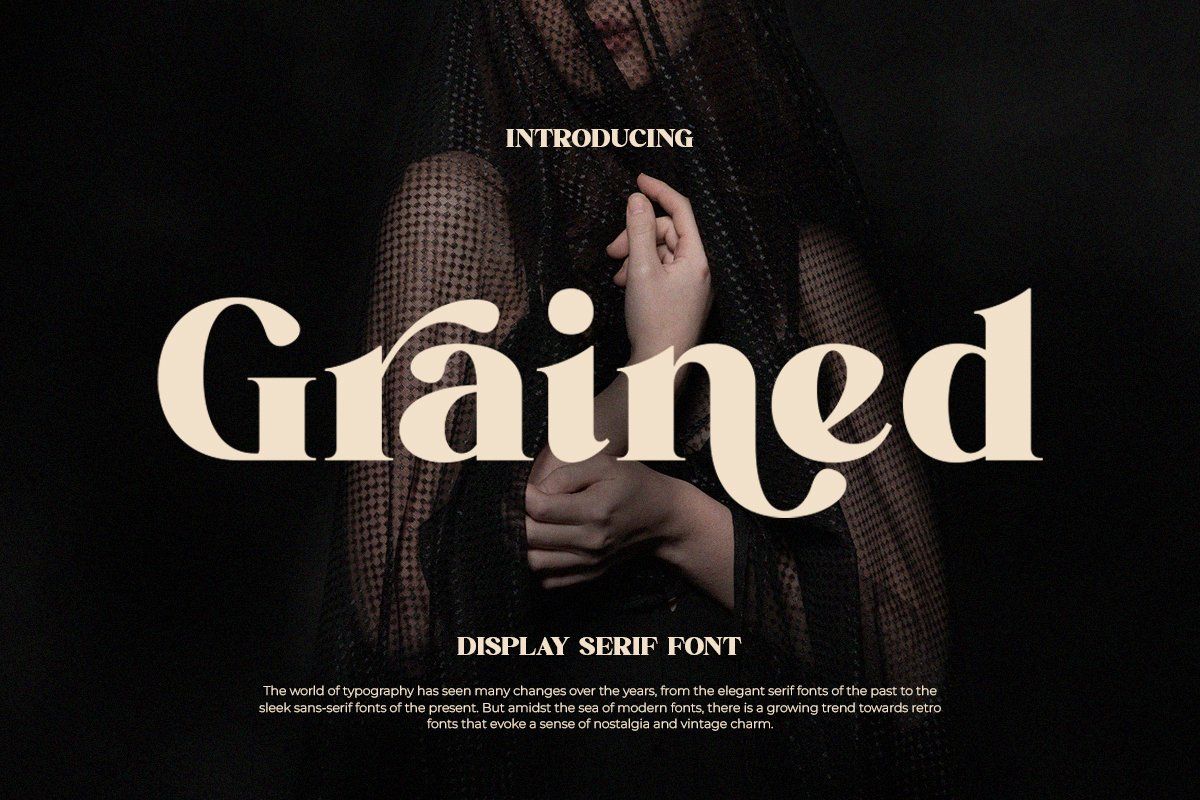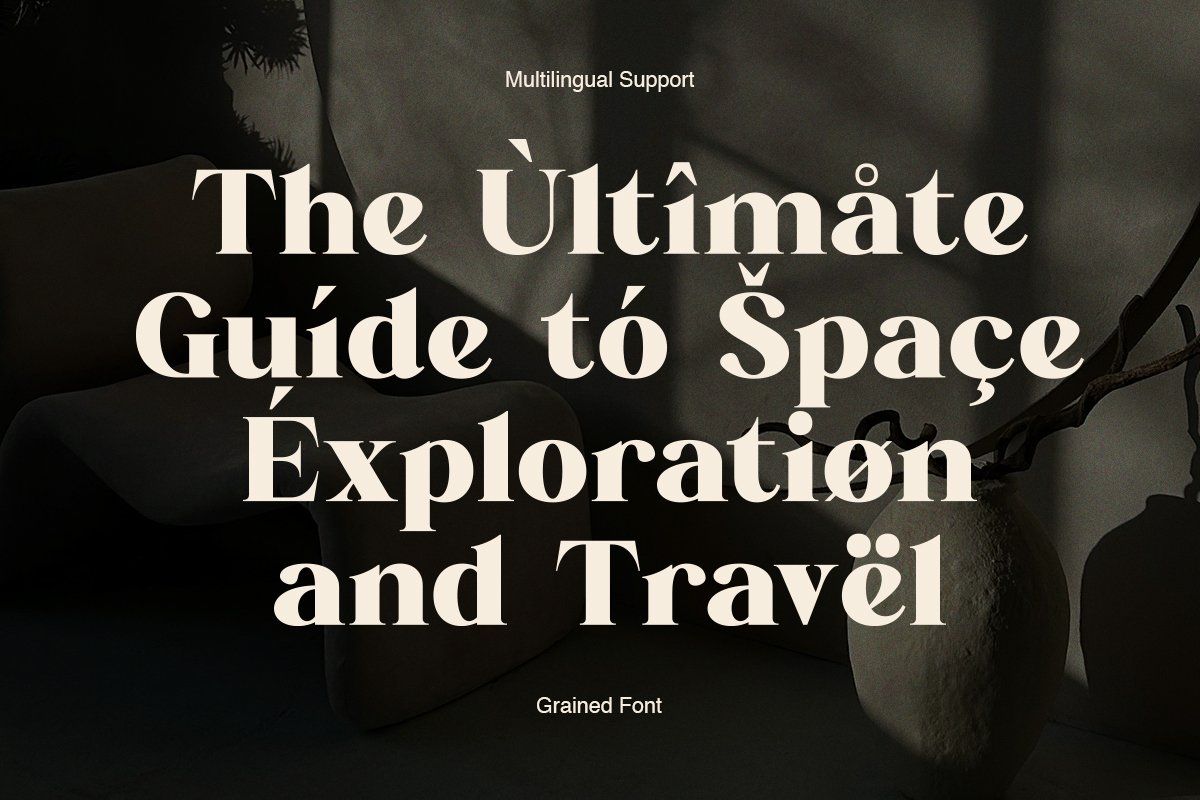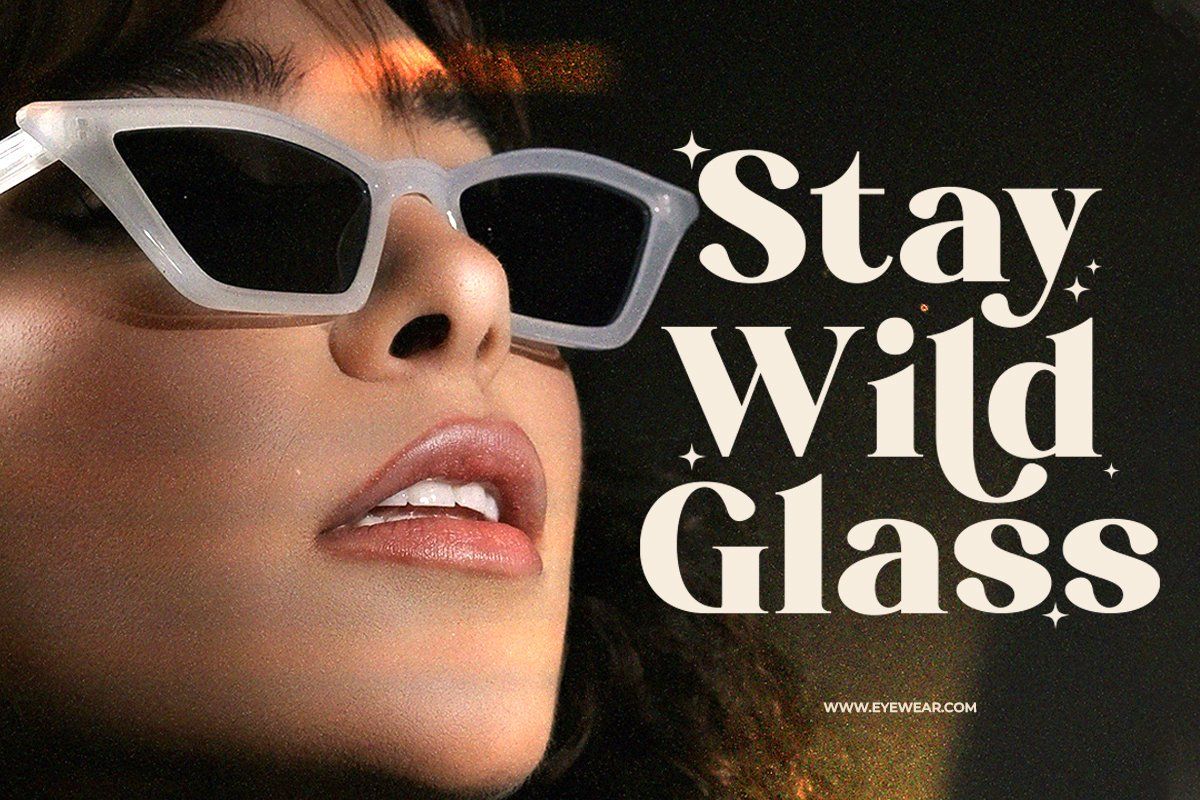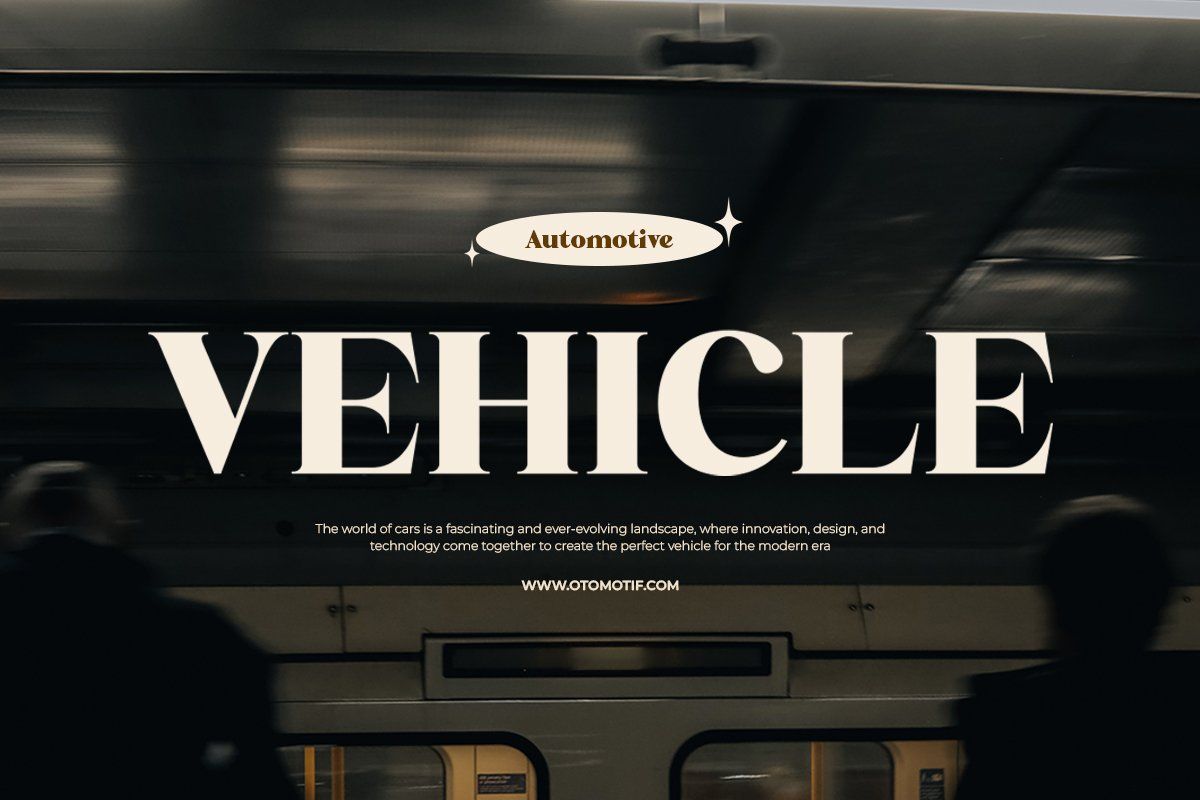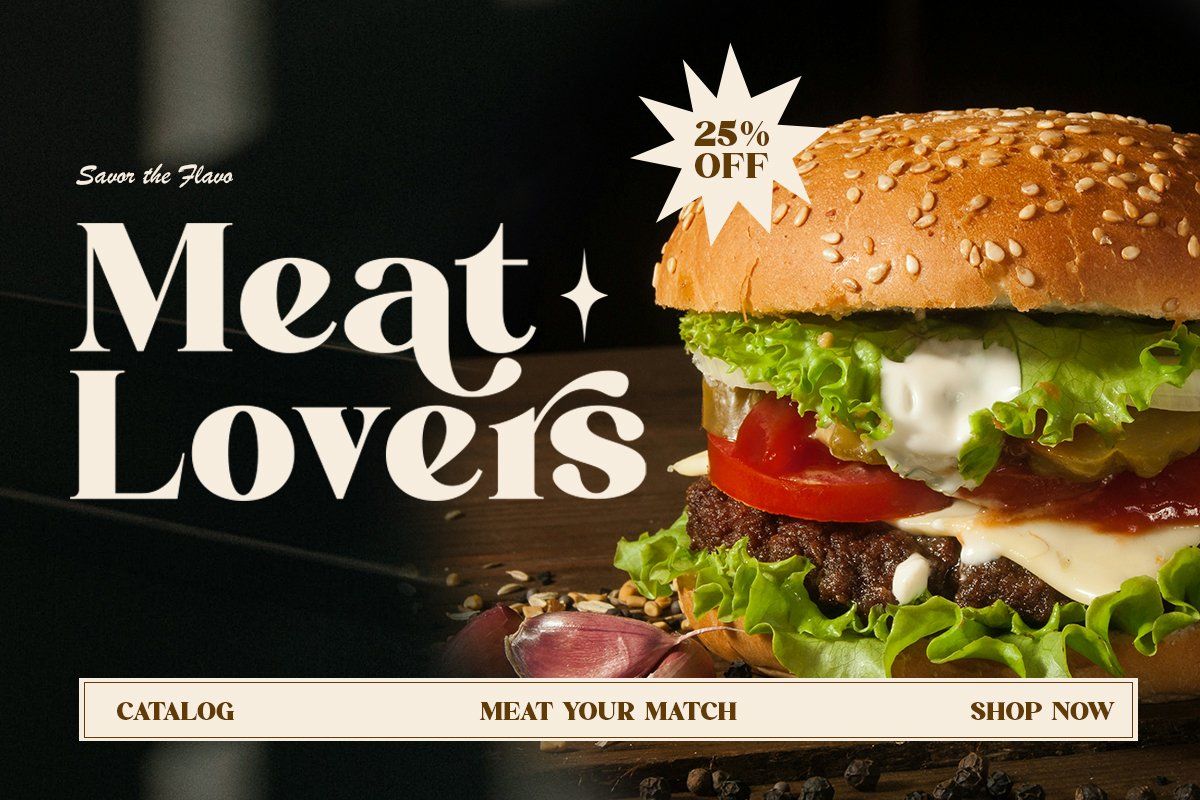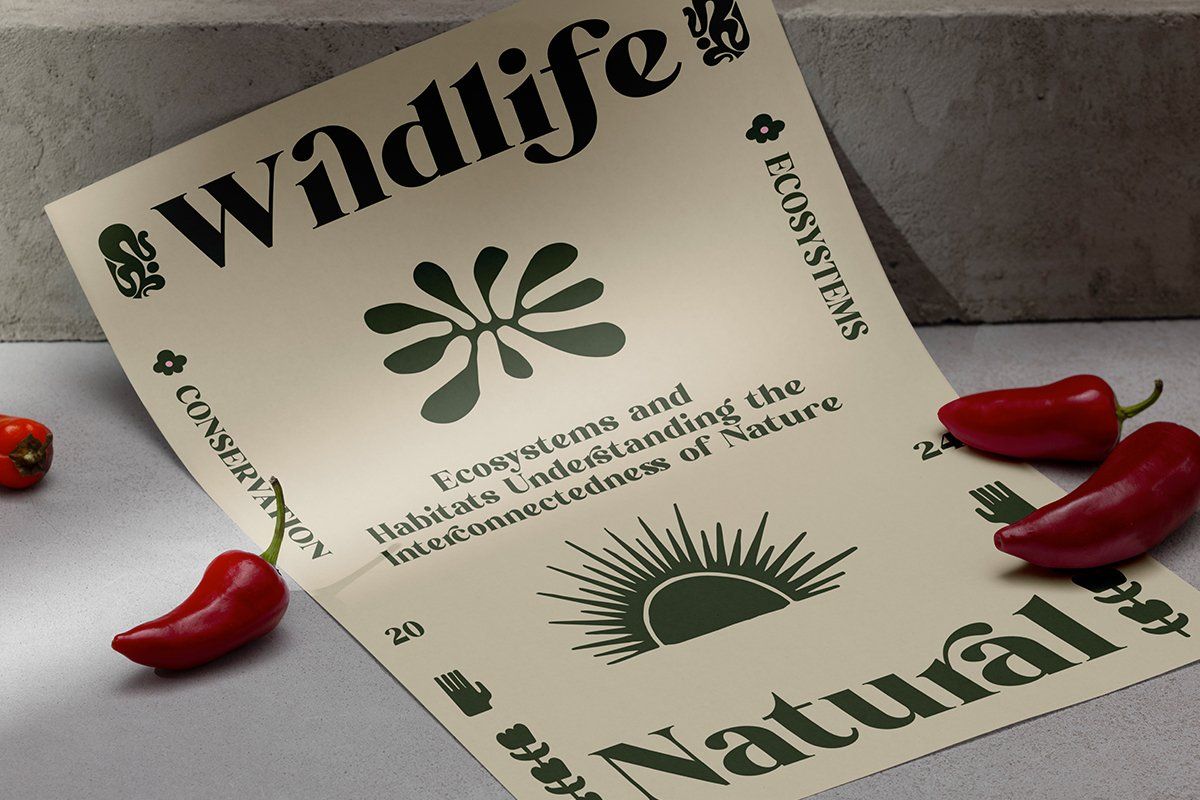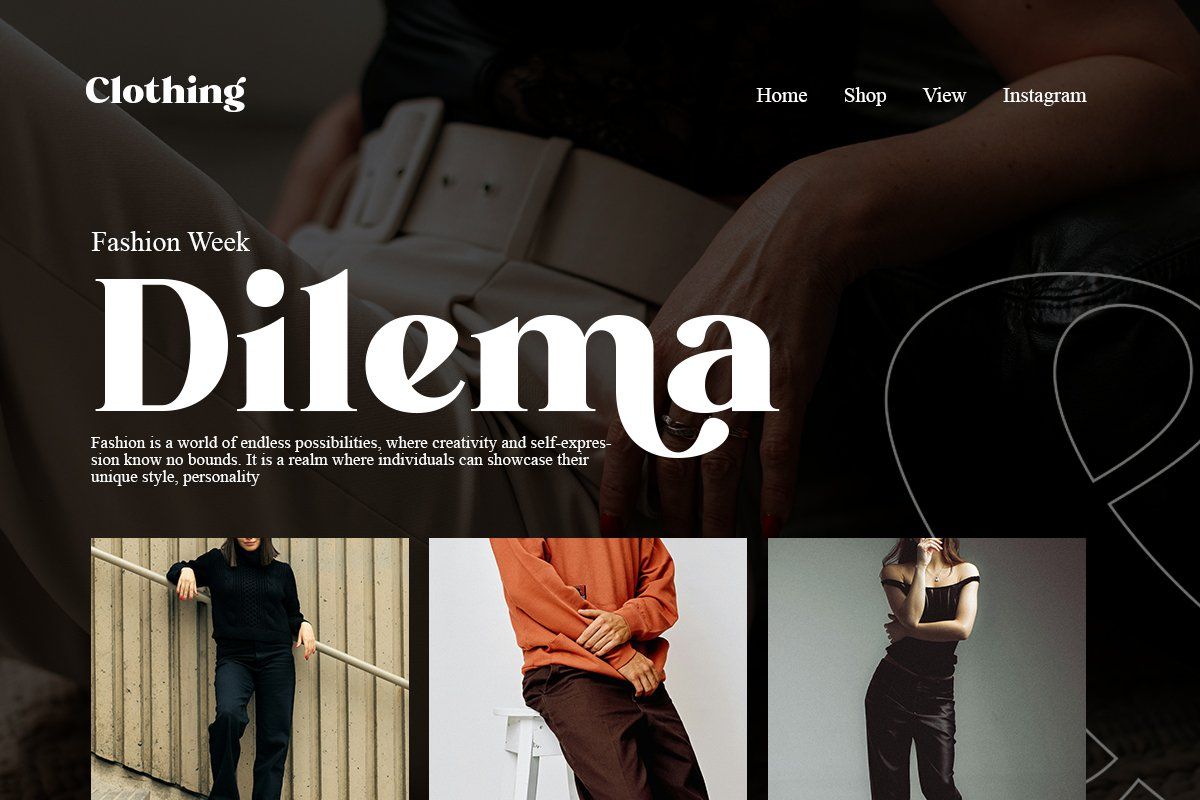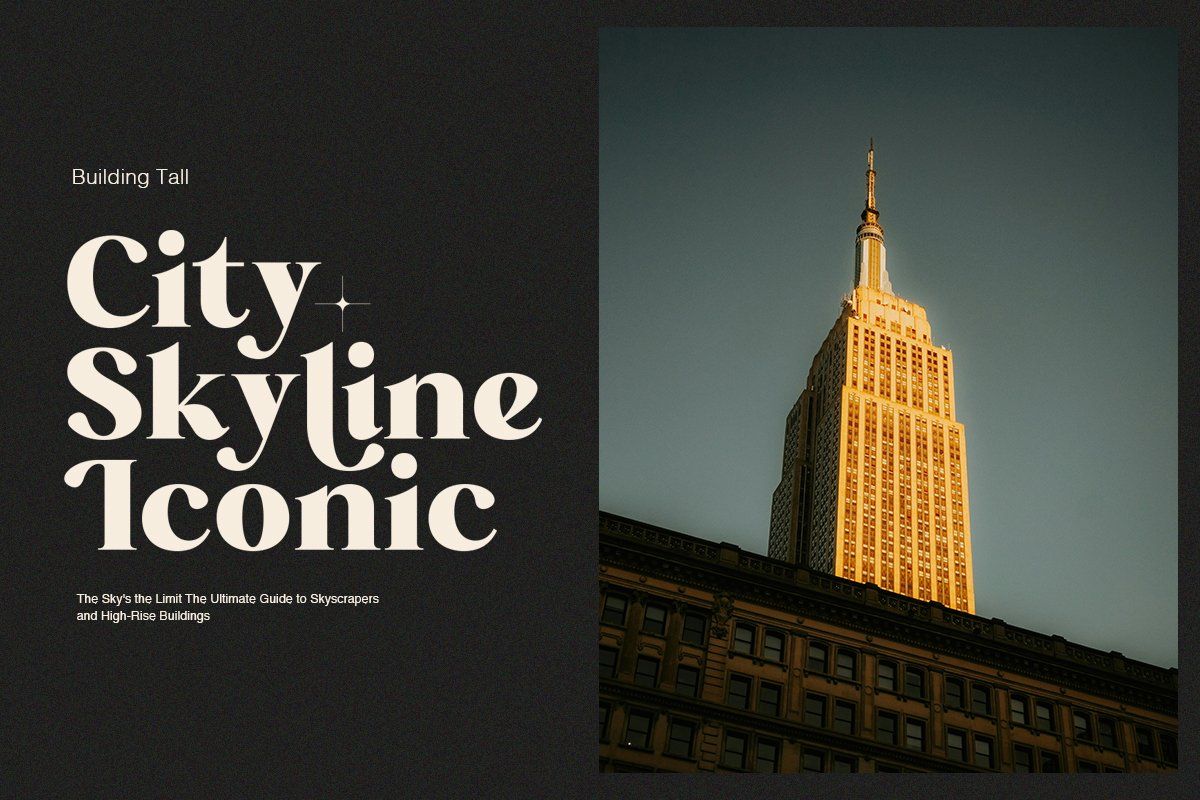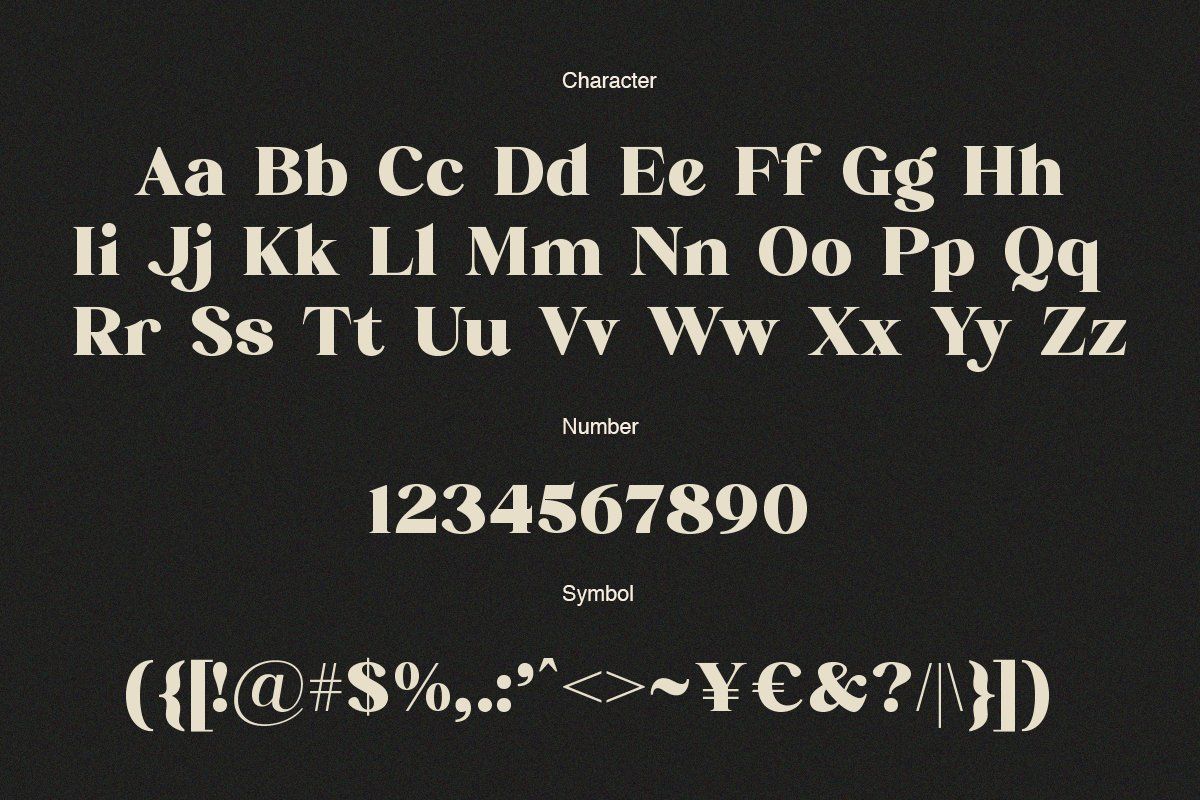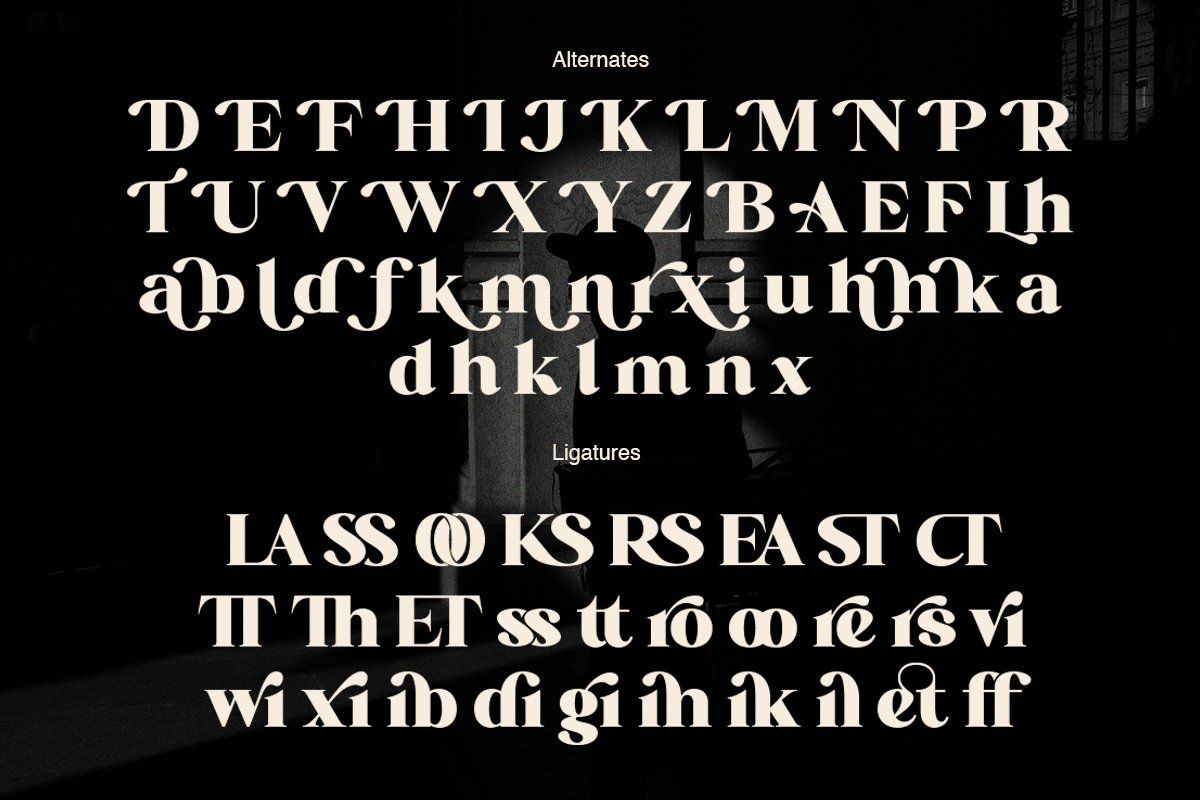
ET Grained is a distinctive Display Serif Font crafted to bring a refined, editorial, and sophisticated character to your designs. Its elegant serif details are combined with a subtle grained texture, creating a unique visual personality that feels both classic and contemporary.
Designed to make a strong impression, ET Grained works beautifully for bold headlines, luxury branding, editorial layouts, packaging, posters, fashion projects, and creative identities.
✦ FONT FEATURES
• Elegant and distinctive display serif style
• Subtle grained texture for an authentic, artistic feel
• Strong character with a sophisticated appearance
• Perfect for headlines and large typography
• Versatile for both modern and vintage-inspired designs
• Suitable for branding and professional design projects
• Works beautifully in print and digital applications
✦ PERFECT FOR
ET Grained is ideal for:
• Logo & Brand Identity
• Luxury Branding
• Fashion & Beauty
• Editorial Design
• Magazine & Book Covers
• Packaging Design
• Posters & Advertising
• Product Labels
• Invitations & Wedding Stationery
• Social Media Graphics
• Photography & Creative Studio Branding
• Headlines, Titles & Display Typography
✦ THE STYLE
ET Grained combines editorial elegance, vintage character, and modern sophistication. The grained appearance adds depth and personality while maintaining excellent visual impact, making it a great choice when your design needs typography that feels memorable and distinctive.
Whether you're creating a premium fashion identity, an elegant product label, an editorial cover, or a sophisticated logo, ET Grained is designed to give your work a strong and recognizable typographic presence.